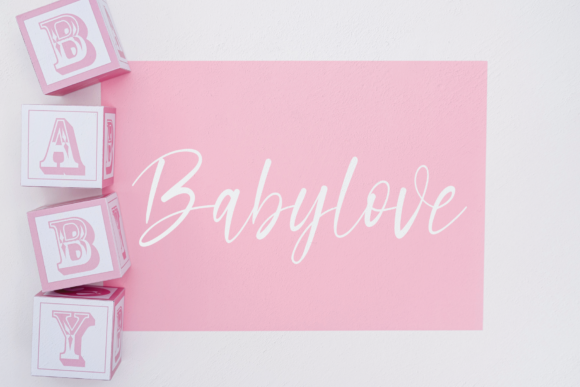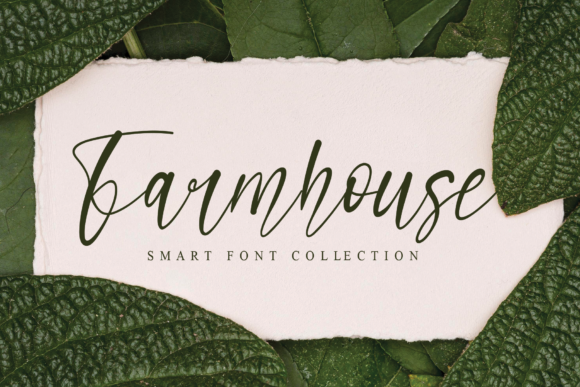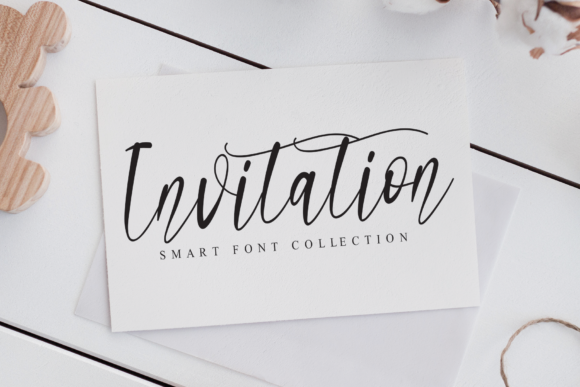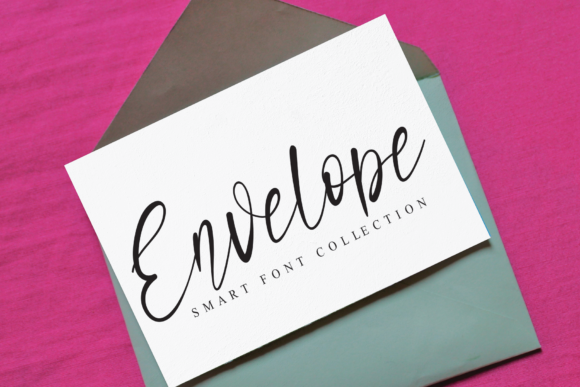
Introducing Butterflies Font: Elevate Your Designs with Elegance and Sophistication
Are you a designer or crafter looking for a font that can add a touch of luxury and sophistication to your projects? Look no further than Butterflies Font, a beautiful light handwritten font with a flowing vibe and a stunning impact. In this article, we’ll dive into the world of Butterflies Font, exploring its features, benefits, and uses, and provide you with tips and inspiration on how to incorporate it into your designs.
What is Butterflies Font?
Butterflies Font is a gorgeous light handwritten font that exudes elegance and refinement. Its flowing lines and curves create a sense of movement and fluidity, making it perfect for designs that require a touch of whimsy and sophistication. Whether you’re working on a branding project, a wedding invitation, or a craft tutorial, Butterflies Font is sure to add a luxury spark to your design.
Key Features of Butterflies Font
- Light and Airy: Butterflies Font features a light and airy texture that gives it a sense of delicacy and refinement.
- Handwritten: The font’s handwritten style adds a personal touch to your designs, making them feel more approachable and human.
- Flowing Vibe: The font’s flowing lines and curves create a sense of movement and energy, making it perfect for designs that require a touch of dynamism.
- Stunning Impact: Butterflies Font has a stunning impact that is sure to grab attention and leave a lasting impression.
Benefits of Using Butterflies Font
So, why should you choose Butterflies Font for your designs? Here are just a few benefits of using this gorgeous font:
- Adds Luxury and Sophistication: Butterflies Font adds a touch of luxury and sophistication to any design project, making it perfect for high-end brands and designers.
- Versatile: The font is versatile and can be used for a wide range of design projects, from branding and advertising to wedding invitations and craft tutorials.
- Easy to Read: Despite its elegant and refined style, Butterflies Font is easy to read and understand, making it perfect for designs that require a clear and concise message.
- Unique: Butterflies Font is a unique and distinctive font that will set your designs apart from the crowd.
Using Butterflies Font in Your Designs
So, how can you use Butterflies Font in your designs? Here are a few ideas to get you started:
- Branding and Advertising: Use Butterflies Font to create elegant and sophisticated branding materials, such as logos, business cards, and brochures.
- Wedding Invitations: Add a touch of romance and whimsy to your wedding invitations with Butterflies Font.
- Craft Tutorials: Use Butterflies Font to create beautiful and eye-catching craft tutorials, such as knitting or crochet patterns.
- Social Media Graphics: Use Butterflies Font to create stunning social media graphics, such as Facebook and Instagram posts.
Tips and Tricks for Working with Butterflies Font
Here are a few tips and tricks for working with Butterflies Font:
- Pair with Bold Fonts: Pair Butterflies Font with bold fonts to create a striking contrast and add visual interest to your designs.
- Use Pastel Colors: Use pastel colors to create a soft and feminine look that complements Butterflies Font.
- Experiment with Ligatures: Experiment with ligatures to add a touch of elegance and sophistication to your designs.
In conclusion, Butterflies Font is a beautiful light handwritten font that can add a touch of luxury and sophistication to any design project. With its flowing vibe and stunning impact, it’s perfect for designers and crafters who want to create elegant and refined designs. Whether you’re working on a branding project, a wedding invitation, or a craft tutorial, Butterflies Font is sure to elevate your designs and leave a lasting impression.